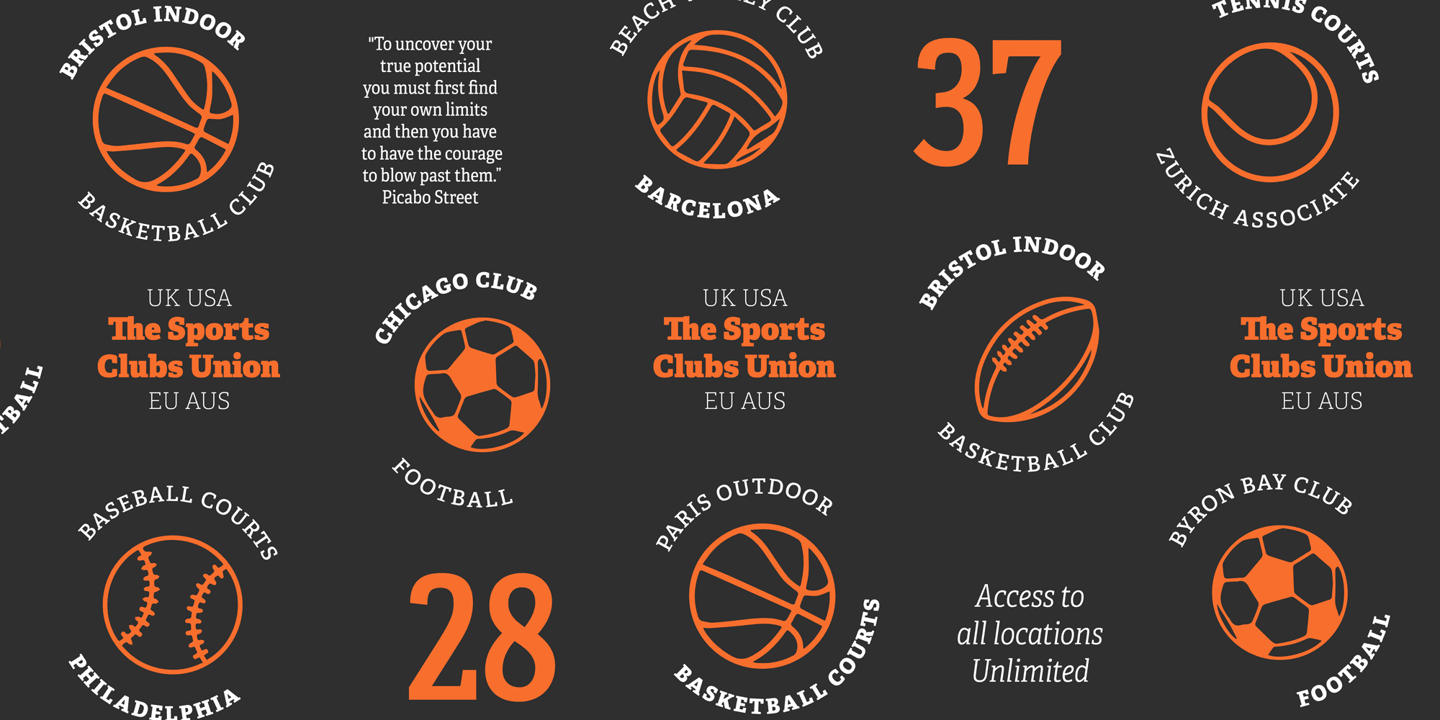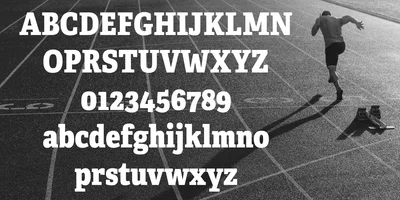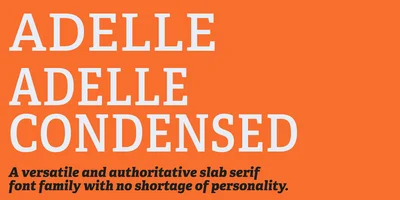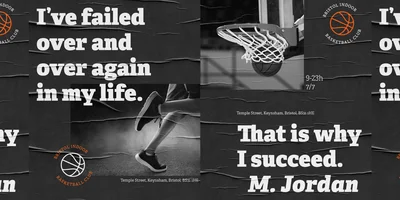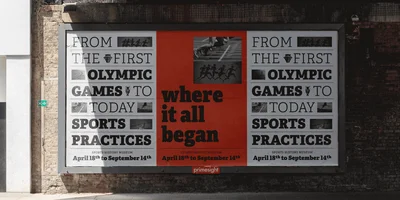
Adelle vs Kepler
Adelle and Kepler are both serif typefaces sharing a editorial foundation. Where Adelle leans slab serif, warm, Kepler brings transitional, modern. Compare which suits your Editorial project.
Design overlap:17%
| Feature | Adelle | Kepler |
| Language Support | latin, latin-extended, cyrillic | latin, latin-extended, cyrillic |
| Source | TypeTogether | Adobe |
Recommended: Adelle
- slab serif, warm design character
- Suited for Web and Apps
- From typetogether
Consider: Kepler
- transitional, modern design character
- Suited for Books and Magazines
- From adobe